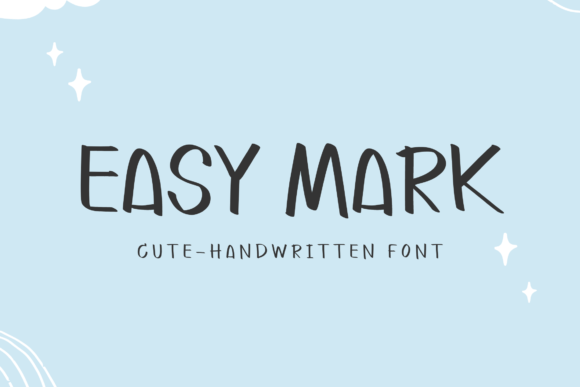
Feast your eyes on Easy Mark, a captivating script font family that will ignite your creativity and transform your designs into works of art. Immerse yourself in the world of poetry, where words dance and emotions flow like a gentle stream. Easy Mark's whimsical letterforms, reminiscent of a child's playful scribbles, evoke a sense of nostalgia and innocence. Each character is a unique masterpiece, brimming with personality and charm, inviting you to let your imagination run wild.
Picture yourself crafting a poster that speaks volumes, a visual symphony of heartfelt words brought to life by Easy Mark's enchanting curves and delicate strokes. The font's innate playfulness lends itself effortlessly to children's projects, greeting cards, and crafty designs. Its versatility extends to whimsical logos, playful social media posts, and eye-catching branding materials.
With Easy Mark by your side, you'll embark on a typographic adventure, leaving a trail of creativity wherever you go. Let your inner child shine through as you explore the boundless possibilities that await you. Create designs that resonate, designs that touch hearts and leave a lasting impression.
Don't settle for ordinary fonts; embrace the extraordinary with Easy Mark. Step into a realm of wonder and delight, where fonts come alive and stories unfold. Unleash your imagination and let Easy Mark guide you on an artistic journey that will leave you spellbound.